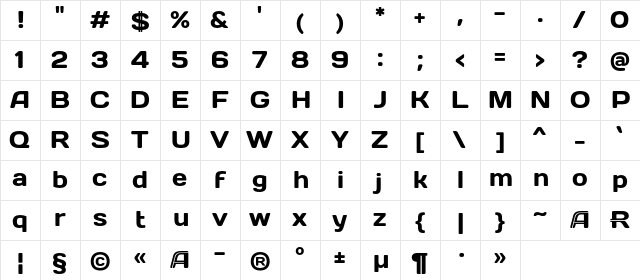
Days Regular
| Foundry | Alexander Kalachev, Alexey Maslov, Jovanny Lemonad |
| Designer | Alexander Kalachev, Alexey Maslov, Jovanny Lemonad |
Design Context for Days Typeface
Days offers clean, dependable letterforms without strong stylistic allegiance, making it a practical choice for designers who need flexibility.